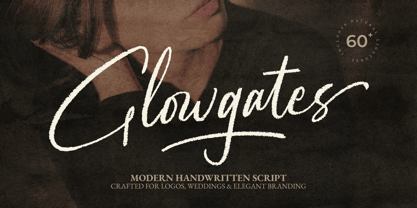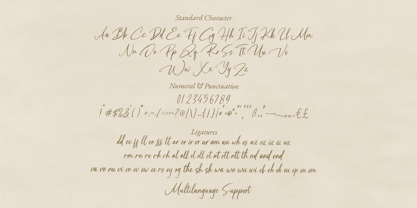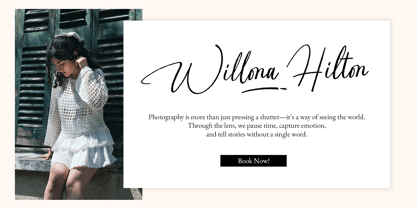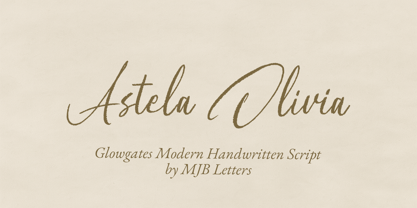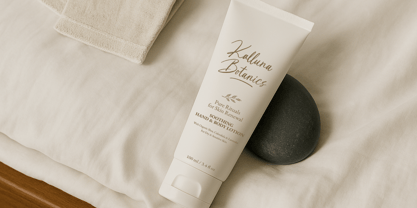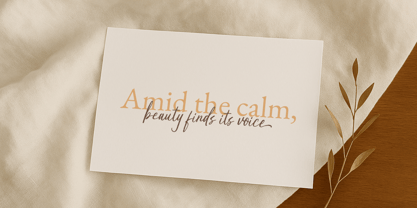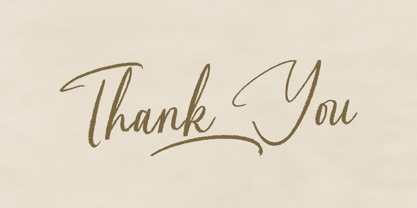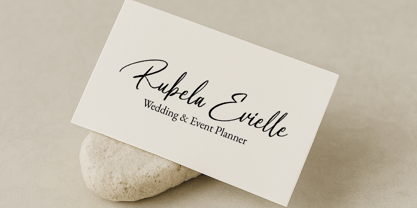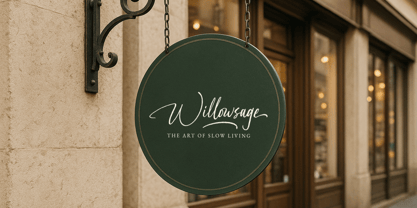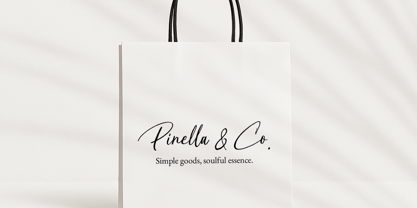
Glowgates
by MJB Letters
The Glowgates Font Family was designed by Muhammad Mujibulloh and published by MJB Letters. Glowgates contains 1 styles. More about this family
Glowgates is a modern handwritten script font designed to capture a natural writing flow with an elegant and expressive character. Featuring textured strokes and smooth curves, Glowgates delivers a warm, organic handwritten feel while maintaining a refined and professional appearance. This font is perfectly suited for creative projects that require personality and sophistication. Glowgates works beautifully for logo design, wedding invitations, elegant branding, editorial headlines, quotes, premium packaging, website headers, and social media visuals. Its natural connections and rich ligature set help your typography feel authentic, fluid, and visually engaging across both digital and print media. Whether used as a statement logo or a subtle supporting script, Glowgates adds emotion, charm, and timeless handwritten character to any design.
Designers: Muhammad Mujibulloh
Foundry: MJB Letters
MJB Letters is a distinguished font foundry based in the heart of Indonesia, dedicated to the art and craft of type design. Our journey began with a passion for typography and a vision to create fonts that not only communicate but also resonate with diverse audiences across the globe. At MJB Letters, we believe that every letter tells a story, and our mission is to bring those stories to life through meticulously crafted typefaces.Our collection features a wide array of fonts, each designed with a unique personality and purpose. From elegant serifs to modern sans-serifs, playful scripts to bold display fonts, our library caters to a multitude of design needs and creative projects. We take pride in our attention to detail, ensuring that each font is not only visually appealing but also highly functional and versatile.Innovation and creativity are at the core of MJB Letters. Our team of skilled designers continuously explores new trends and techniques, pushing the boundaries of traditional typography to create fonts that are both timeless and contemporary. We are committed to providing designers, brands, and businesses with the tools they need to make a lasting impression.As a proud Indonesian foundry, we draw inspiration from our rich cultural heritage and the vibrant artistic landscape of our country. This unique perspective allows us to infuse our fonts with a distinct character that sets them apart in the global market.At MJB Letters, we are more than just a font foundry; we are a community of type enthusiasts who are passionate about empowering creativity through exceptional typography. Whether you're a designer seeking the perfect typeface for your project or a brand looking to establish a strong visual identity, MJB Letters is here to help you make your mark.Explore our diverse font collection and experience the artistry of MJB Letters. Let us be your partner in bringing your creative vision to life, one letter at a time.